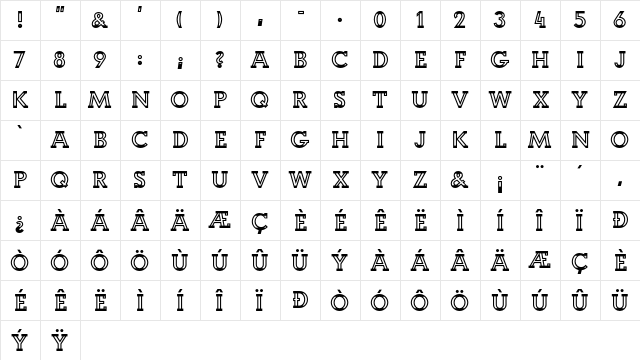
K22 Landi Linear Regular
Design Context for K22 Landi Linear Typeface
K22 Landi Linear is a composed and adaptable typeface that performs quietly and consistently across a wide range of design contexts.